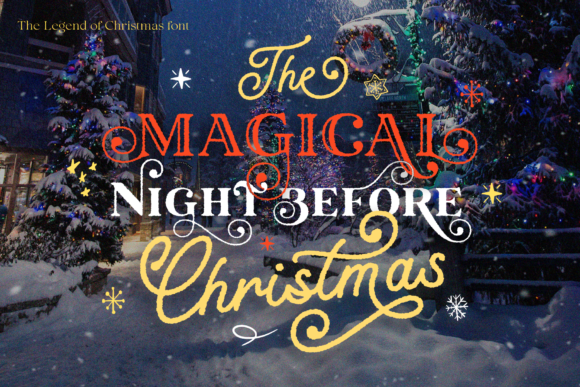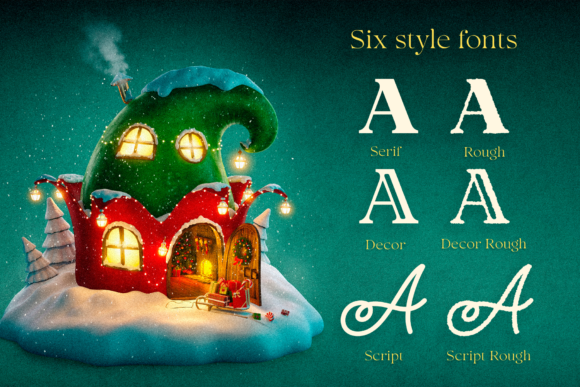
The Legend of Christmas Font
db-ku.com - Script & Handwritten -- The Legend of Christmas is a lovely and stylish trio font. It will elevate a wide range of crafting ideas, from cards, to branding, labels and much more.